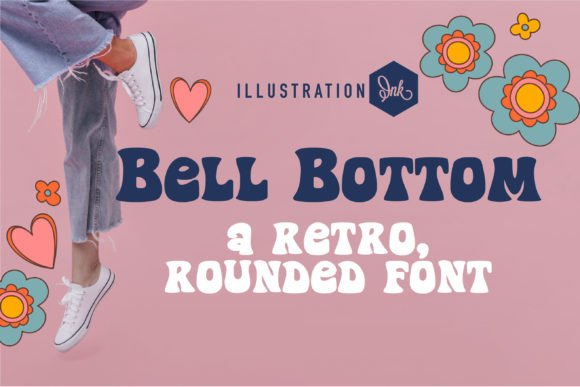
Bell Bottom Font: The Ultimate Guide to a Fun and Fresh Display Font
Bell Bottom Font is a fun and fresh display font that has been gaining popularity among designers and artists. With its cool, retro vibe, this font is perfect for all your hippie and groovy designs. In this article, we’ll take a closer look at the Bell Bottom Font, its features, and how you can use it to add a touch of nostalgia to your designs.
What is Bell Bottom Font?
Bell Bottom Font is a display font that features a unique, retro-inspired design. The font is characterized by its flared, bell-shaped letters, which give it a distinctive and eye-catching look. The font is perfect for headlines, titles, and other display text, and is ideal for designs that require a fun and playful touch.
Features of Bell Bottom Font
Bell Bottom Font has several features that make it a great choice for designers. Some of its key features include:
- Retro Vibe: The font has a cool, retro vibe that is perfect for designs that require a nostalgic touch.
- Unique Lettering: The font features unique, flared letters that give it a distinctive look.
- Display Font: The font is designed specifically for display text, making it perfect for headlines, titles, and other prominent text.
- Easy to Read: Despite its unique design, the font is easy to read, making it perfect for designs that require a fun and playful touch.
How to Use Bell Bottom Font
Bell Bottom Font is a versatile font that can be used in a variety of designs. Here are some ideas for using the font:
- Hippie and Groovy Designs: The font is perfect for designs that require a hippie or groovy vibe, such as posters, flyers, and other promotional materials.
- Retro-Themed Designs: The font is also great for retro-themed designs, such as vintage-inspired posters, advertisements, and other materials.
- Playful and Fun Designs: The font is perfect for designs that require a playful and fun touch, such as children’s books, games, and other kid-friendly materials.
Benefits of Using Bell Bottom Font
There are several benefits to using Bell Bottom Font in your designs. Some of the benefits include:
- Instant Recognition: The font’s unique design makes it instantly recognizable, adding a touch of nostalgia to your designs.
- Fun and Playful: The font adds a fun and playful touch to your designs, making them more engaging and eye-catching.
- Easy to Use: The font is easy to use and can be incorporated into a variety of designs, from posters and flyers to digital graphics and more.
Tips for Using Bell Bottom Font
Here are some tips for using Bell Bottom Font in your designs:
- Use it Sparingly: While the font is fun and playful, it can be overwhelming if used too much. Use it sparingly to add a touch of nostalgia to your designs.
- Pair it with Other Fonts: The font pairs well with other fonts, such as sans-serif fonts, to create a unique and eye-catching design.
- Experiment with Colors: The font looks great in a variety of colors, so don’t be afraid to experiment and find the perfect color scheme for your design.
Bell Bottom Font is a fun and fresh display font that is perfect for adding a touch of nostalgia to your designs. With its unique, retro-inspired design, the font is ideal for hippie and groovy designs, retro-themed designs, and playful and fun designs. By following the tips outlined in this article, you can use Bell Bottom Font to create eye-catching and engaging designs that are sure to stand out.
- What is Bell Bottom Font? Bell Bottom Font is a fun and fresh display font that features a unique, retro-inspired design.
- What is the font used for? The font is perfect for hippie and groovy designs, retro-themed designs, and playful and fun designs.
- Is the font easy to read? Yes, despite its unique design, the font is easy to read, making it perfect for designs that require a fun and playful touch.